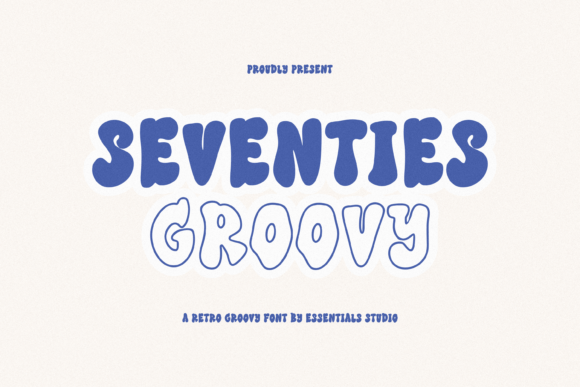
Dive into the groovy era with Seventies Groovy, a captivating display font duo that transports you back to the days of bell bottoms and platform shoes. Its distinctive retro charm, inspired by the iconic 1970s aesthetic, adds an instant touch of nostalgia and playful energy to any design project.
Unleash your creativity with Seventies Groovy, the ultimate font companion for vintage-inspired designs. Its two distinct styles, Regular and Inline, provide endless possibilities to express your unique style. Whether you're designing eye-catching product packaging, creating a vibrant branding identity, or adding a touch of retro flair to your social media posts, Seventies Groovy is the perfect choice.
With its effortless versatility, Seventies Groovy seamlessly adapts to a wide range of design applications. It's the perfect font to capture the essence of the past in modern designs. Its groovy curves and playful spirit bring a sense of nostalgia and fun to any project, making it a standout choice for creating eye-catching headlines, memorable logos, and captivating social media graphics.
Transport your audience to the heart of the disco era with Seventies Groovy. Its distinctive characters, reminiscent of lava lamps and roller-skating rinks, evoke a sense of carefree adventure and endless possibilities. Let Seventies Groovy be your creative partner, helping you craft designs that resonate with a touch of retro magic.
Step into the groovy world of Seventies Groovy today and let your designs dance to the rhythm of the past. Its timeless appeal and versatile nature make it the perfect font for capturing the essence of vintage in contemporary designs. Embrace the retro revolution and let Seventies Groovy unleash your creativity, one groovy design at a time.